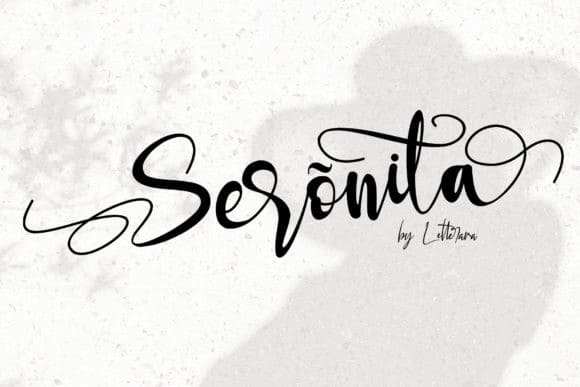
Seronita Calligraphy Font
Introducing Seronita Calligraphy Font. It’s an incredibly beautiful script font. It has a classy, elegant, and modern look. This is a beautiful combination of timeless elegance and authentic calligraphy, It has lowercase beginning and ending swashes.
It’s was designed by thomasaradea. It’s a modern calligraphy font. It has a natural writing style and is perfect for adding an elegant and luxurious feel to your designs. Can be used for logos, branding, invitations, stationery, wedding designs, social media posts, and much more!